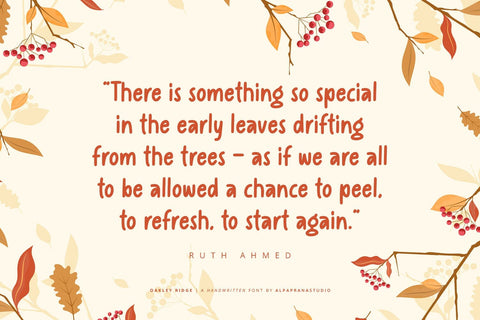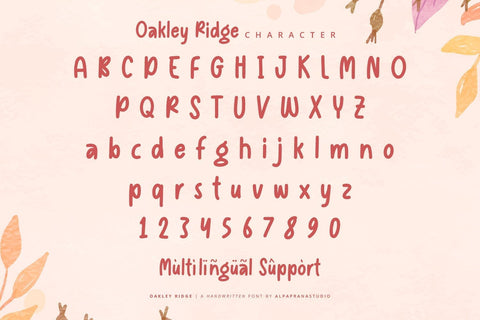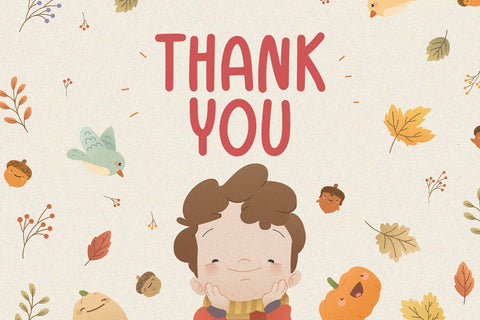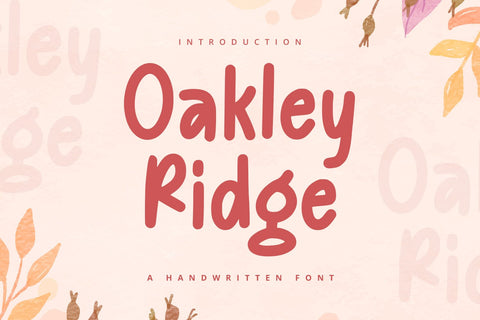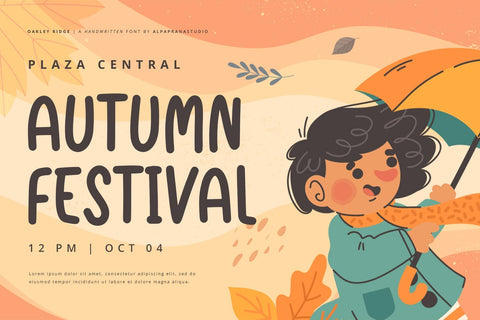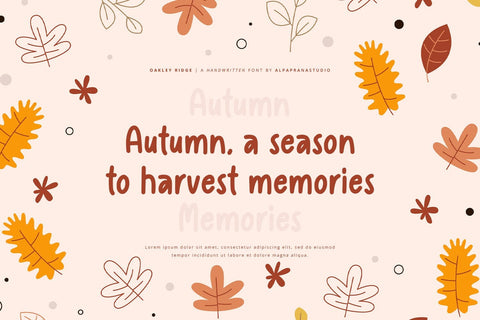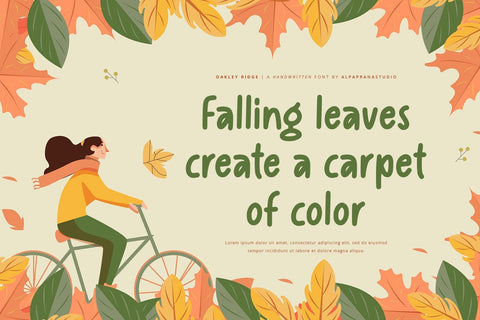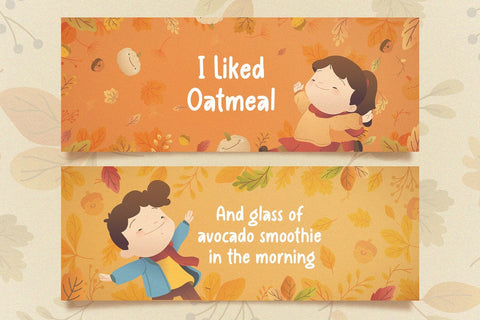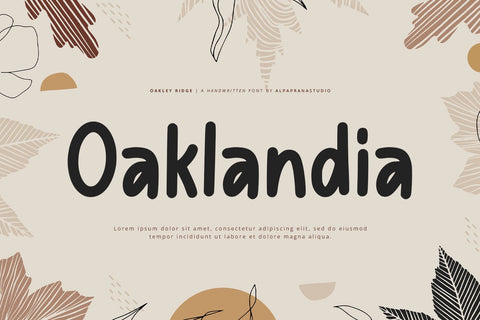
Oakley Ridge - Handwritten Font
Oakley Ridge a handwritten font with modern and cute feels. It will be perfectly used for Branding, Logo Design, Lettering, Logotype, Clothing, Poster, magazine, packaging, posters, shopping bags, t-shirts, book covers, photography, special events and other design project.